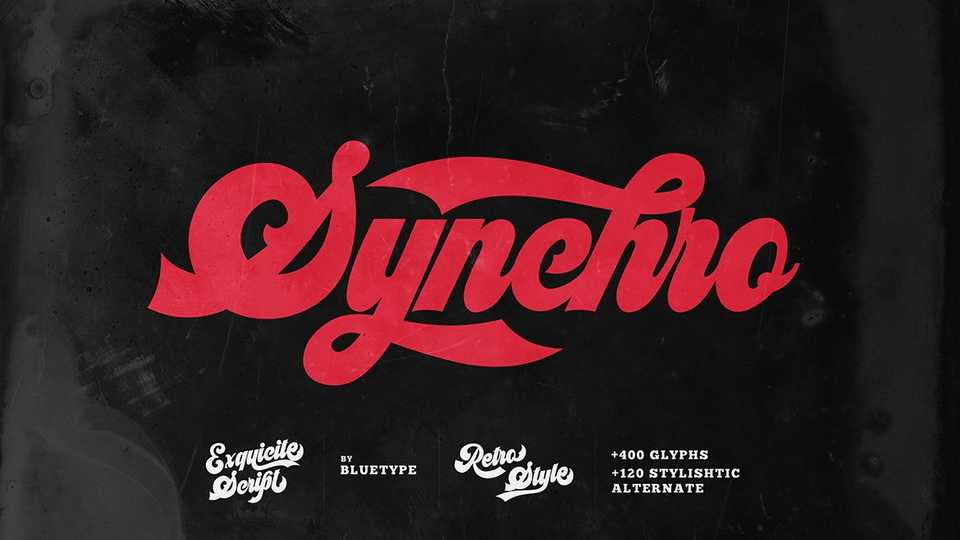
Synchro Script Font › Fontesk
Download Synchro font, a exquisite bold script typeface inspired by the retro design from 70-80-ish. Synchro is really perfect for logotype, t-shirt, vintage badge, retro quotes, branding, packaging, quote etc.
Designer: Bluetype